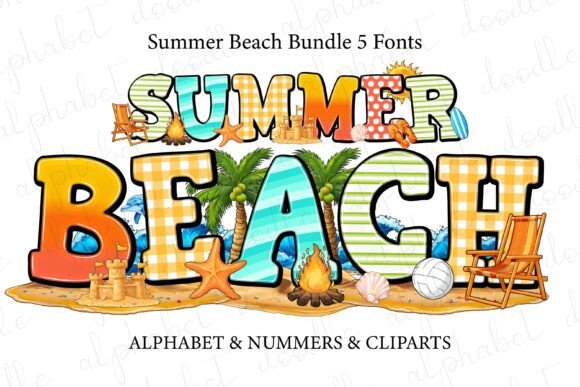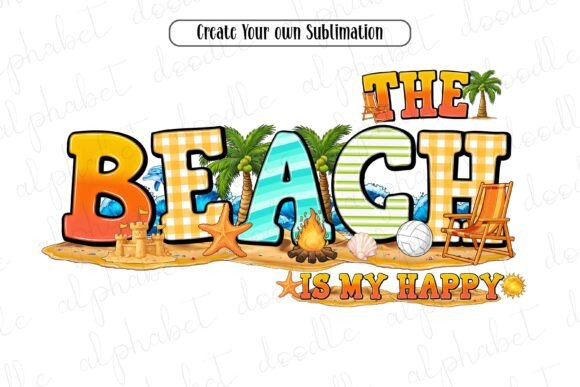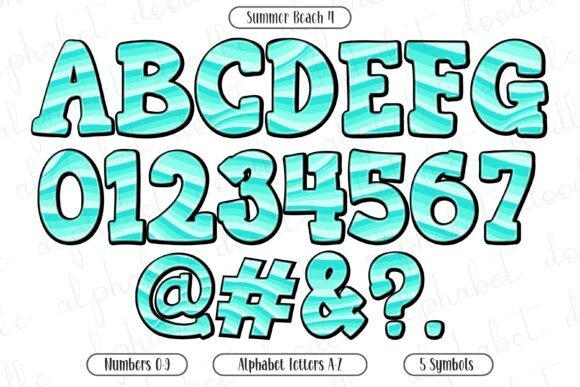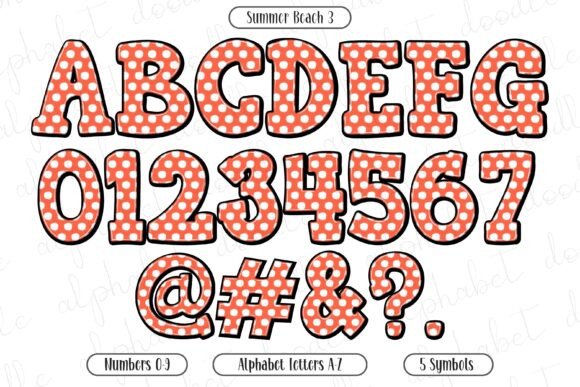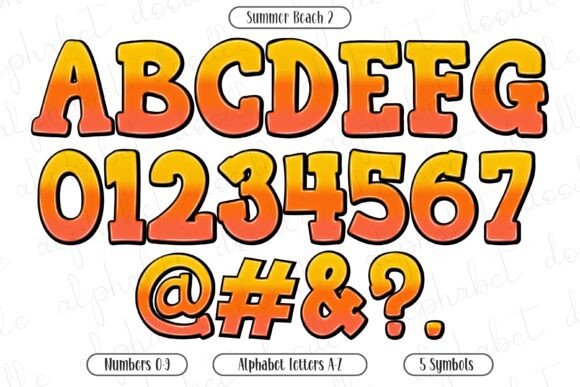
Summer Beach Font
Experience the youthful exuberance of Summer Beach, a colorfully dynamic font that infuses your designs with a lively and amiable charm. Emanating the inviting warmth of a sun-kissed summer, it beautifully harmonizes with creative projects channeling serene holidays, memory-filled vacations or cheerful festivities. Let Summer Beach splash its radiant energy across your personalized t-shirts, attention-grabbing posters, or any craft that craves a dollop of joyous vitality.